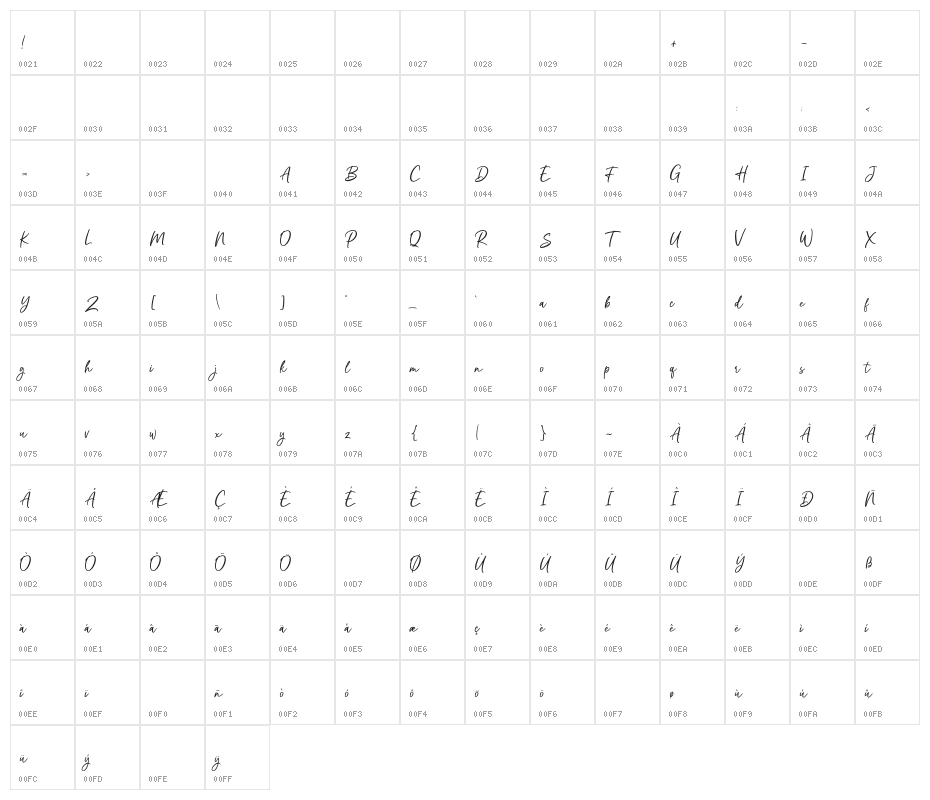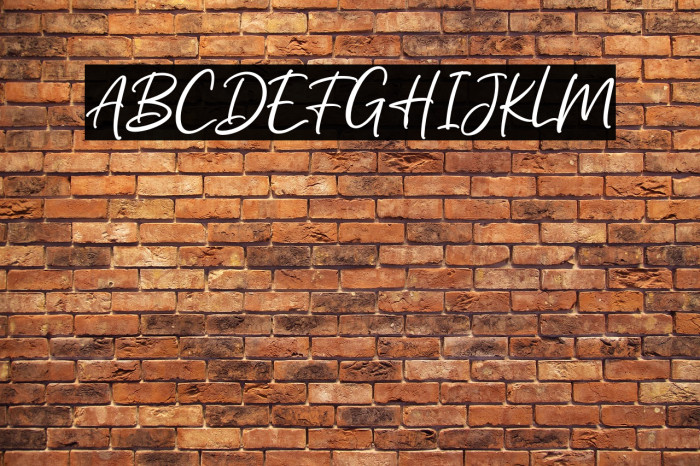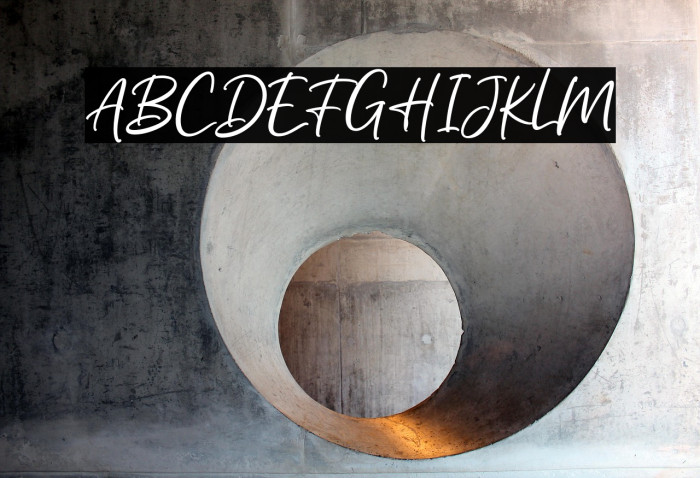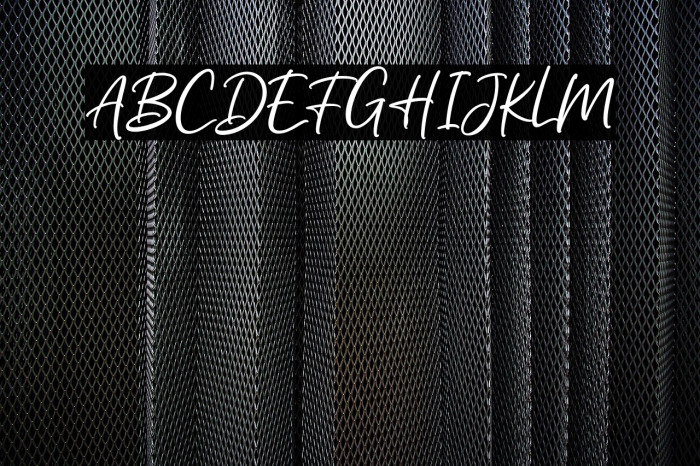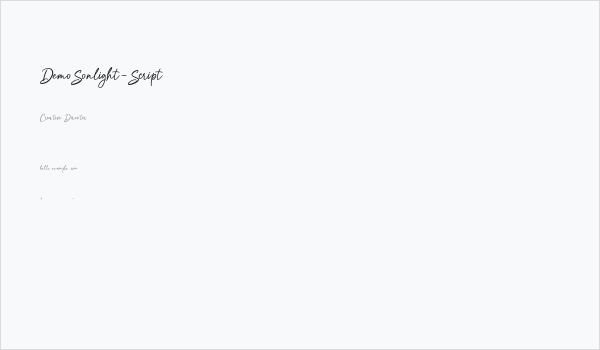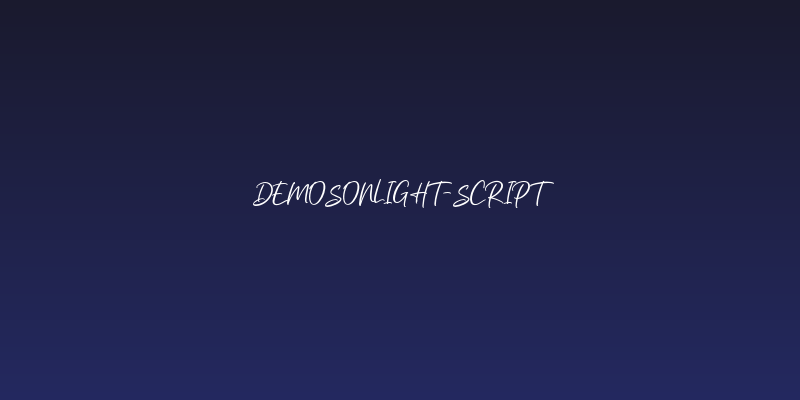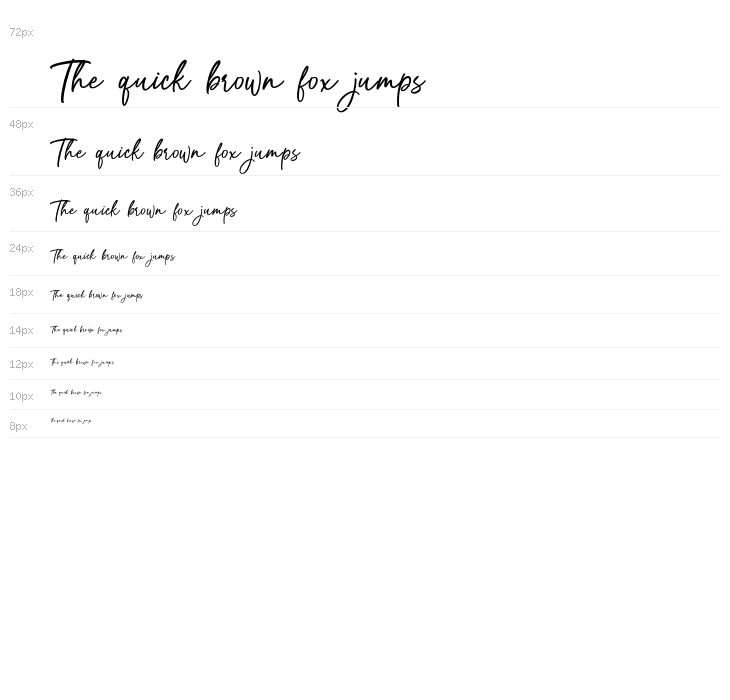
DemoSonlight-Script Font
DemoSonlight-Script Description
This font features a flowing, elegant script style that mimics natural handwriting. The letters are connected in a smooth, cursive manner, giving it a personal and artistic touch. The uppercase letters are slightly larger and more pronounced, while the lowercase letters maintain a consistent flow. The font includes a variety of special characters, adding versatility to its use. The overall appearance is both sophisticated and approachable, making it suitable for a range of creative projects.
| Use Case | Logos, Invitations, Personal Branding |
| Proposed Projects | Ideal for wedding invitations, greeting cards, personal branding, and artistic projects. |